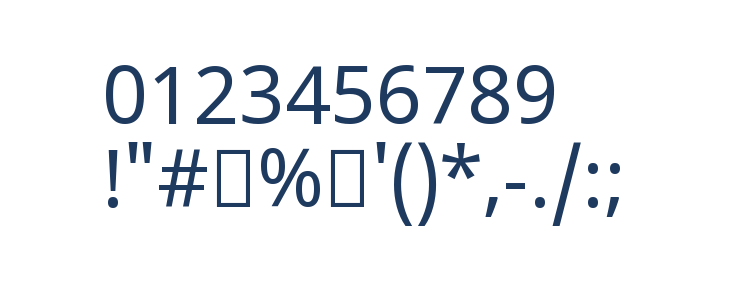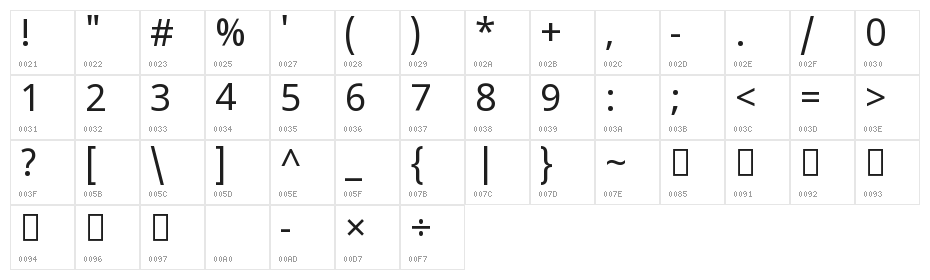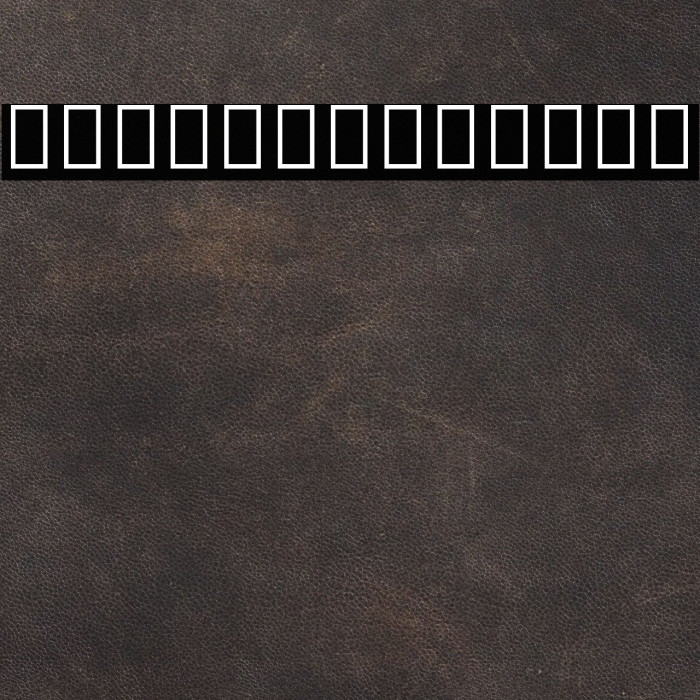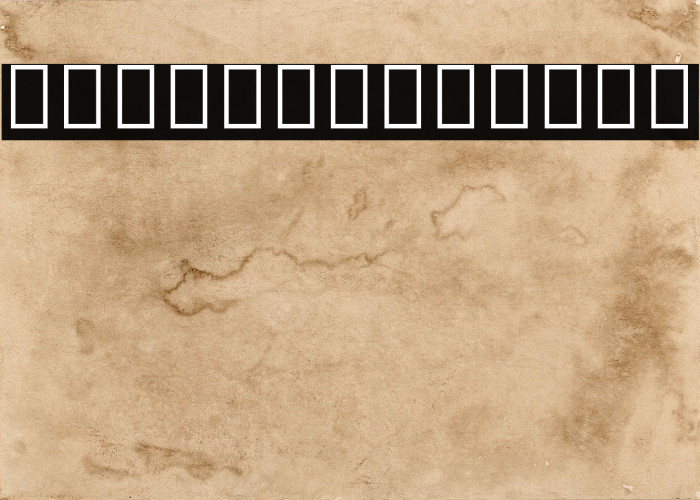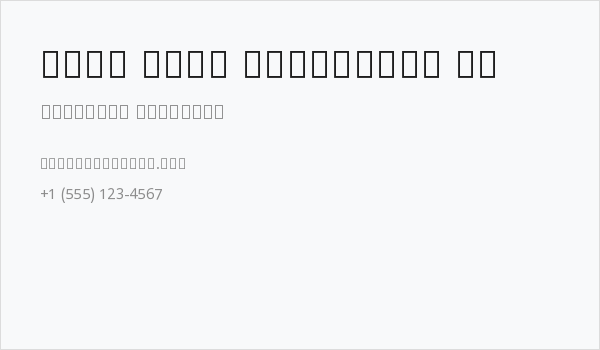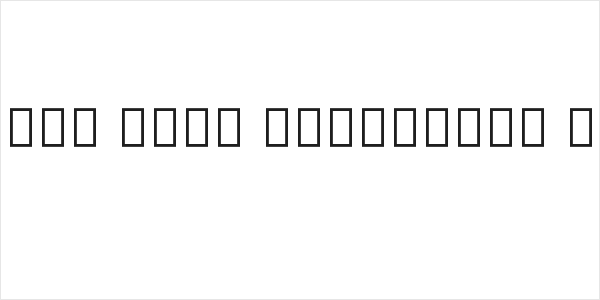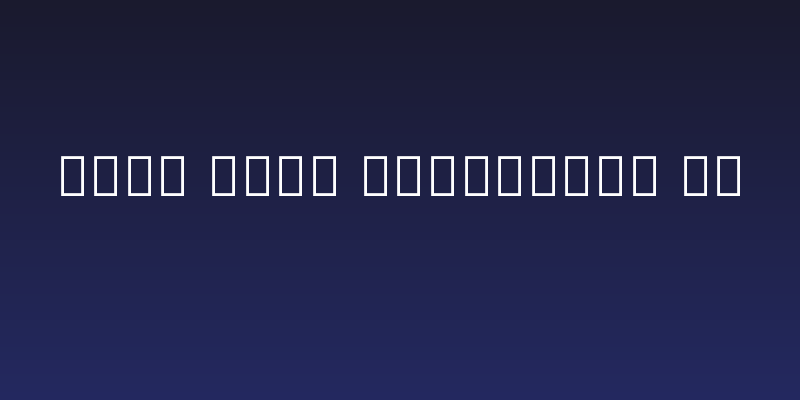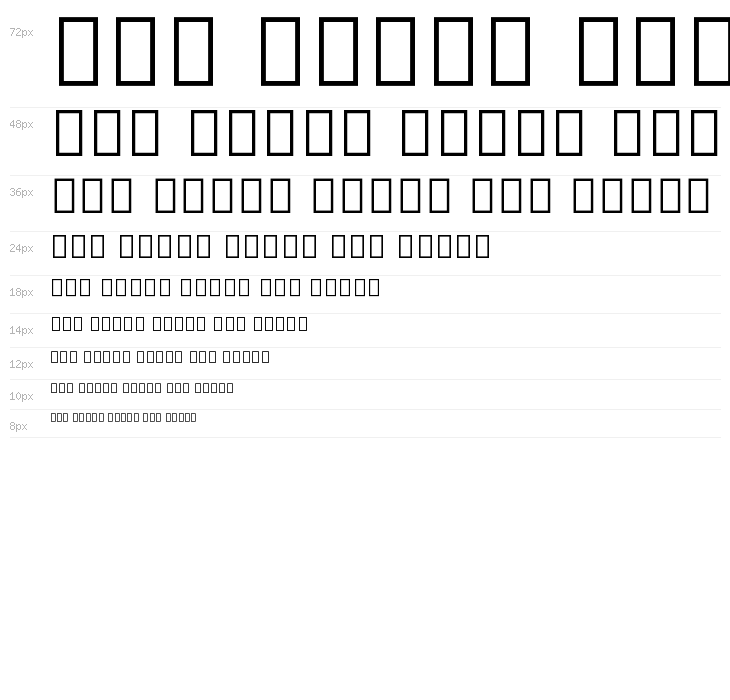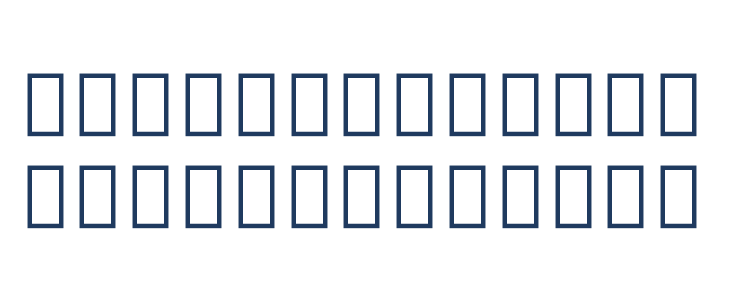
Noto Sans Malayalam UI Font
Noto Sans Malayalam UI Description
This font is designed to support the Malayalam script, providing a clean and modern look suitable for digital interfaces. It features a sans-serif style with uniform stroke widths, ensuring readability and clarity on screens. The numerals and special characters are crafted to match the overall aesthetic, maintaining consistency across different text elements. The design is optimized for user interfaces, making it ideal for applications and websites that require a contemporary and functional typeface.
| Use Case | User interfaces, digital content, applications. |
| Proposed Projects | Ideal for user interfaces, mobile applications, websites, and digital content requiring Malayalam script support. |